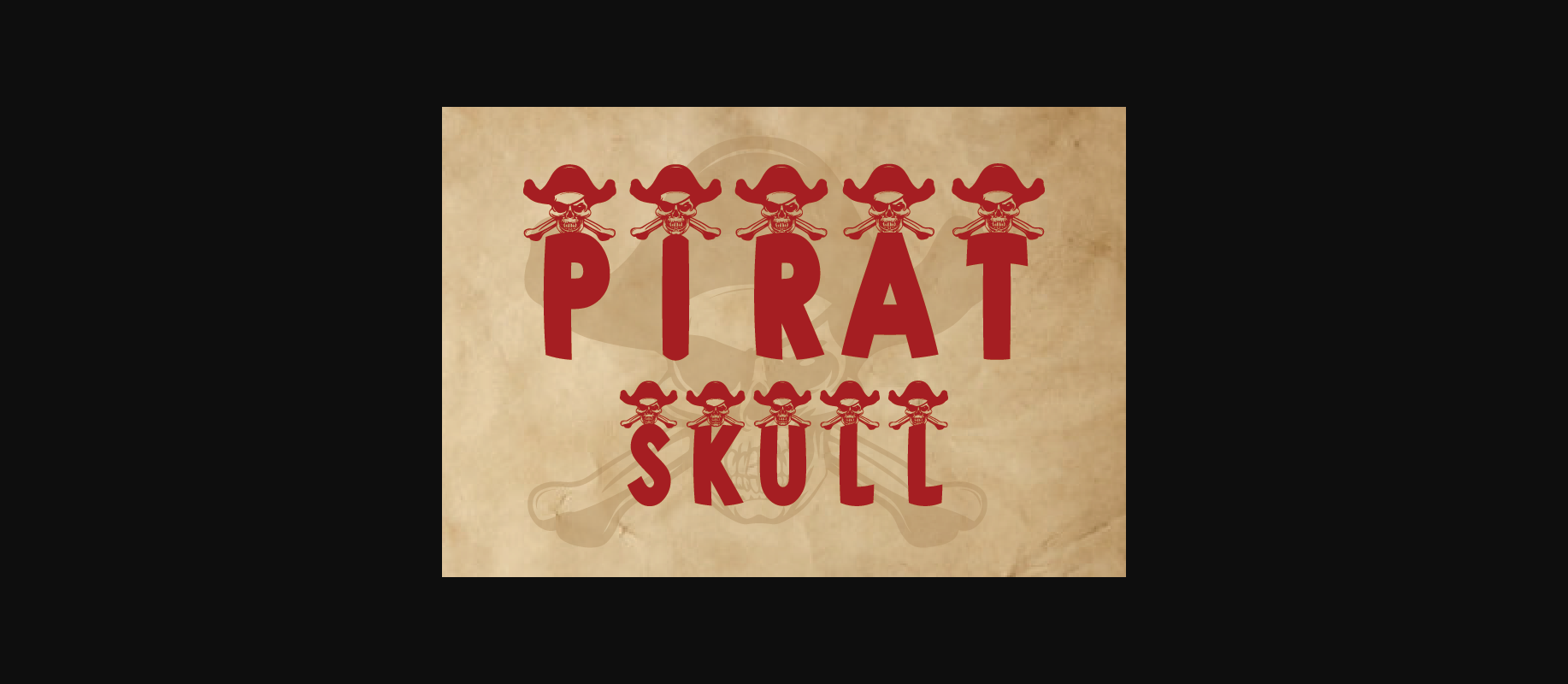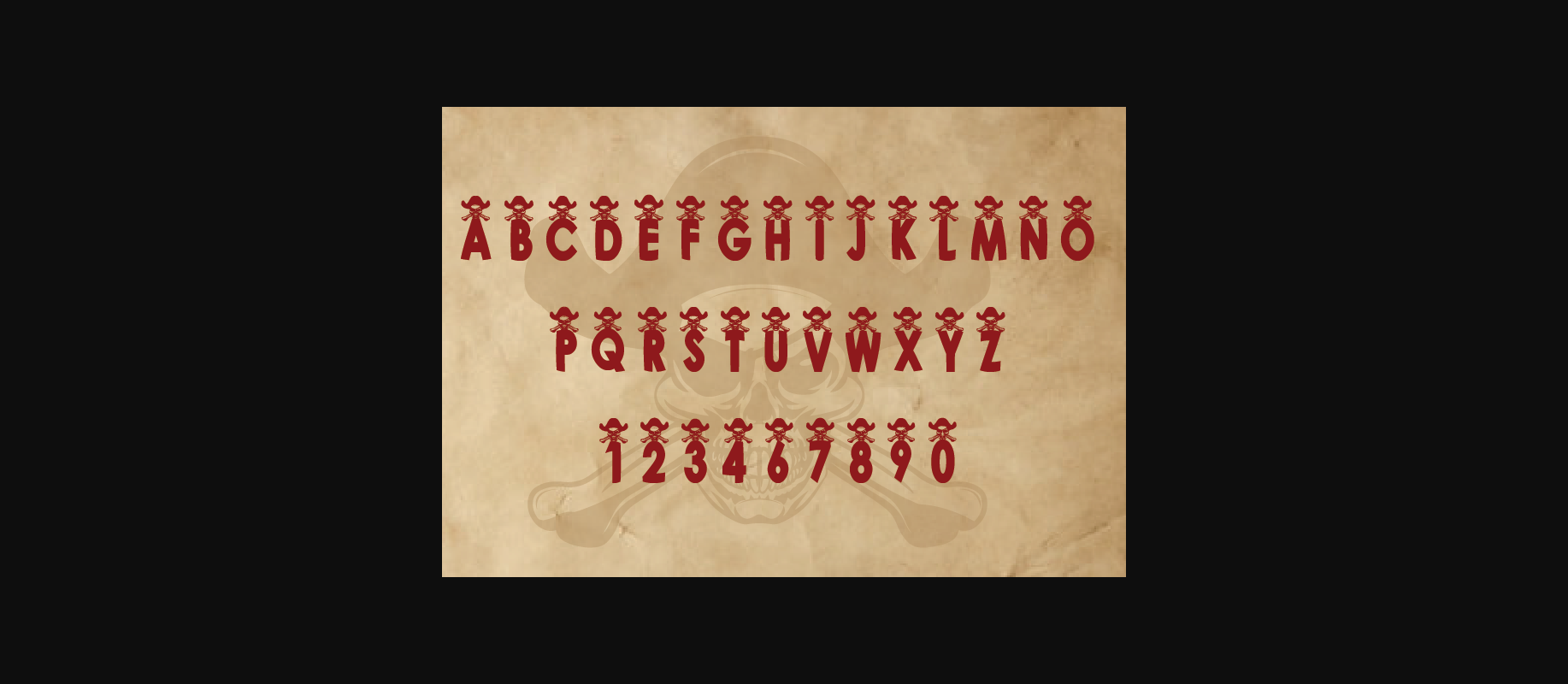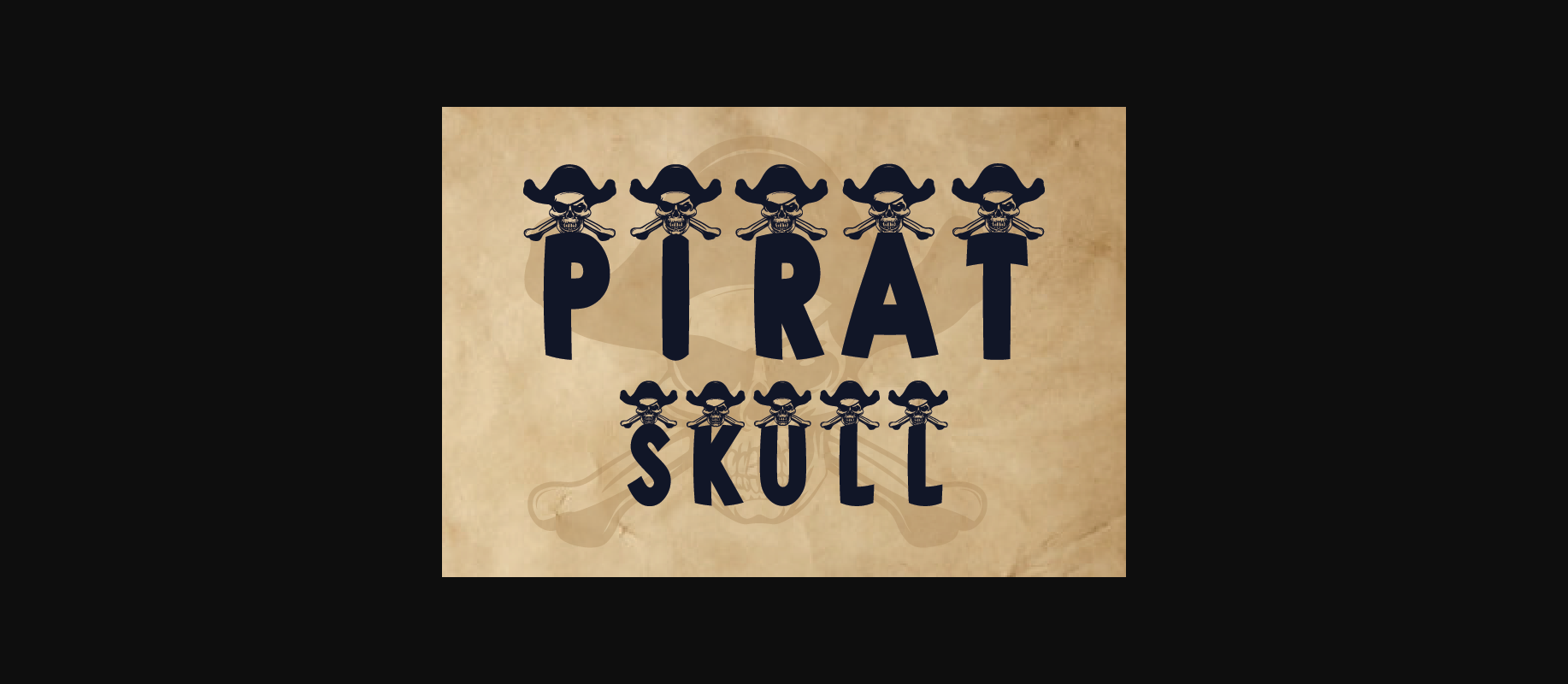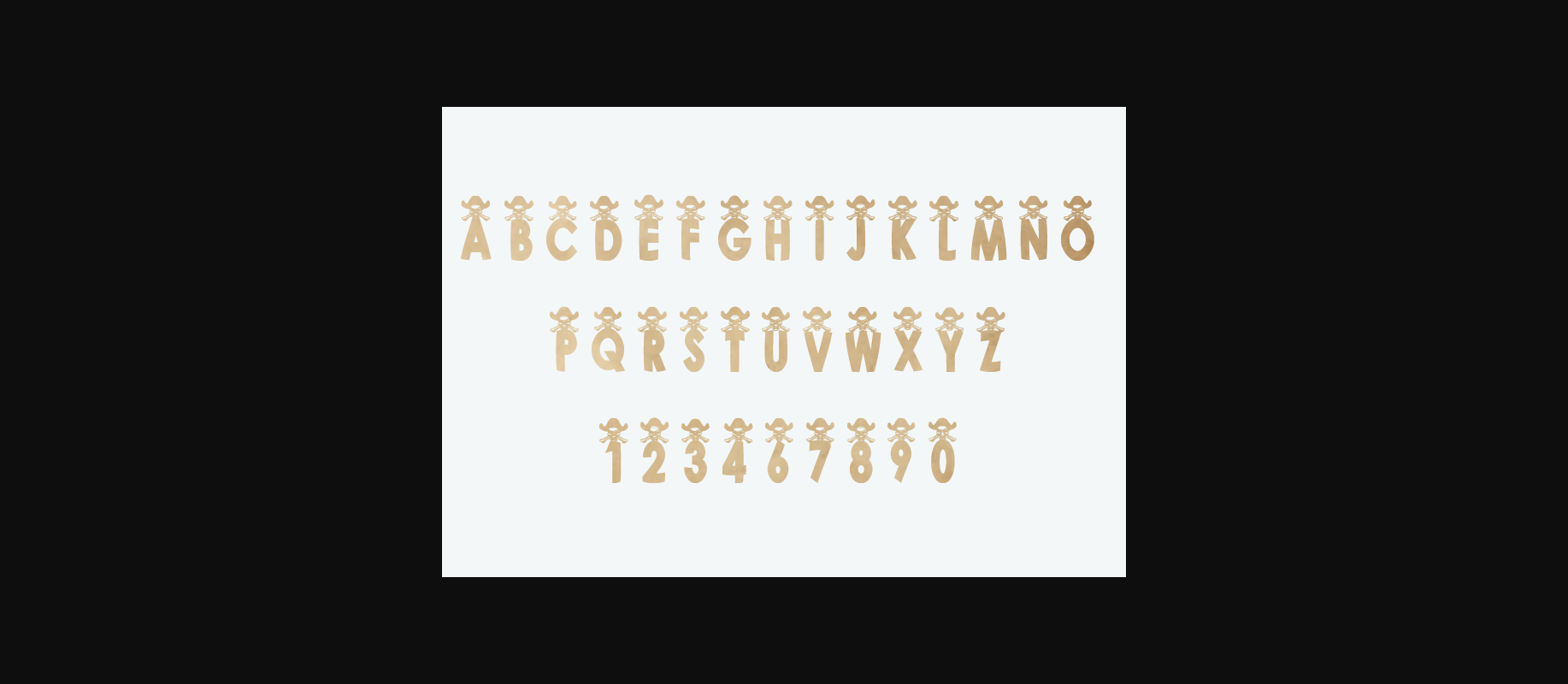
About Pirat Skull Font
Pirate Skull is a fantastic vintage-style font. This font has the potential to bring each of your master ideas to the highest level. You can use your font in any of your creative projects.